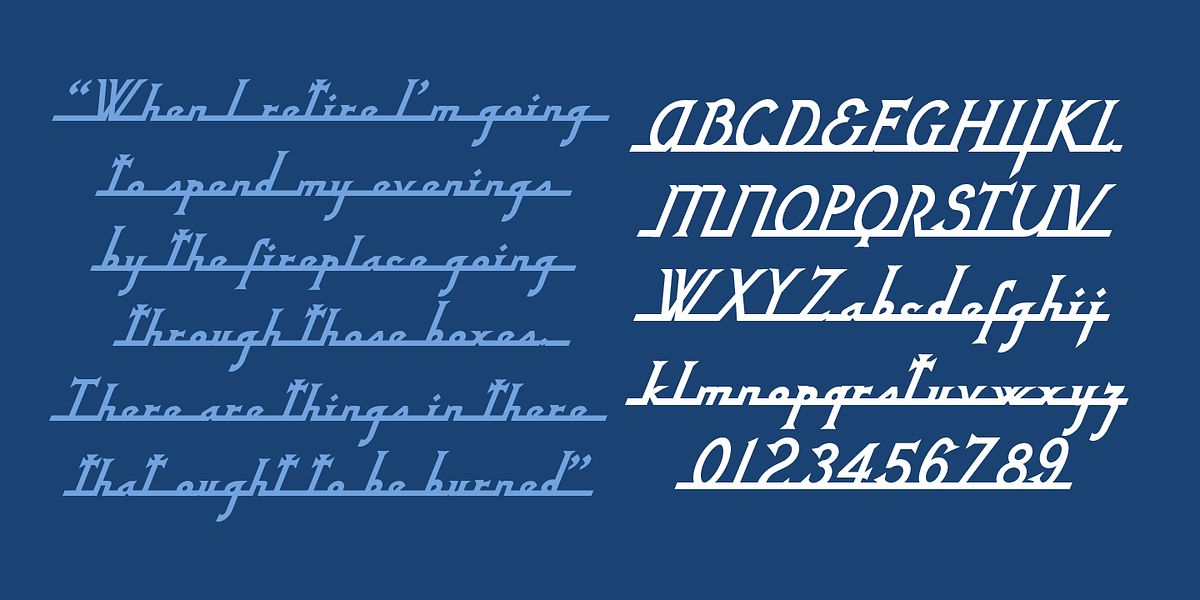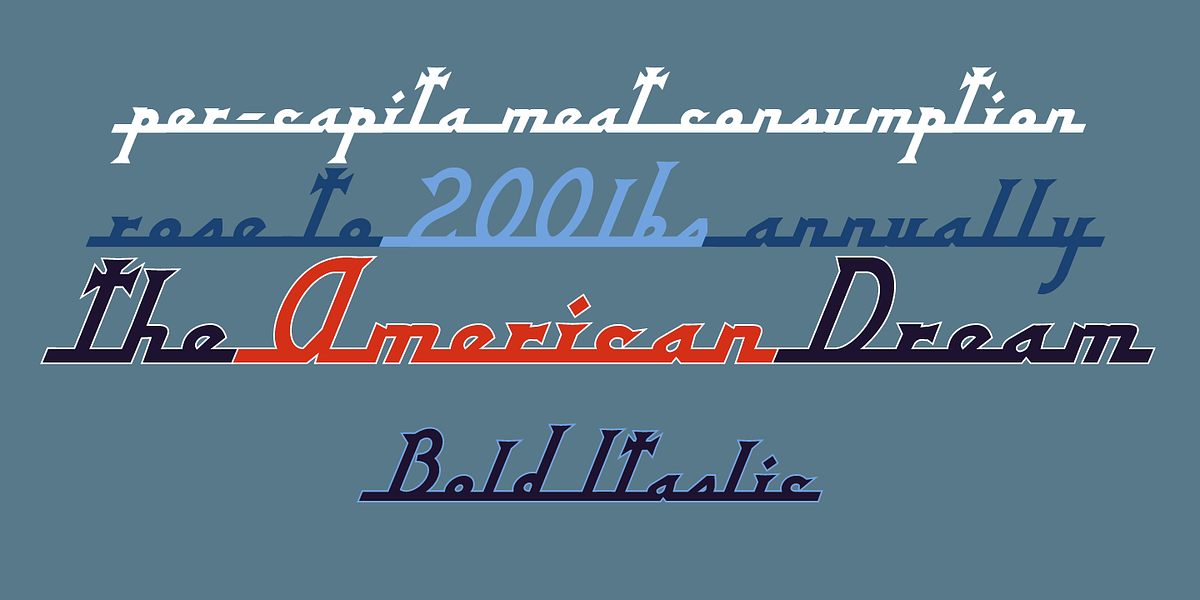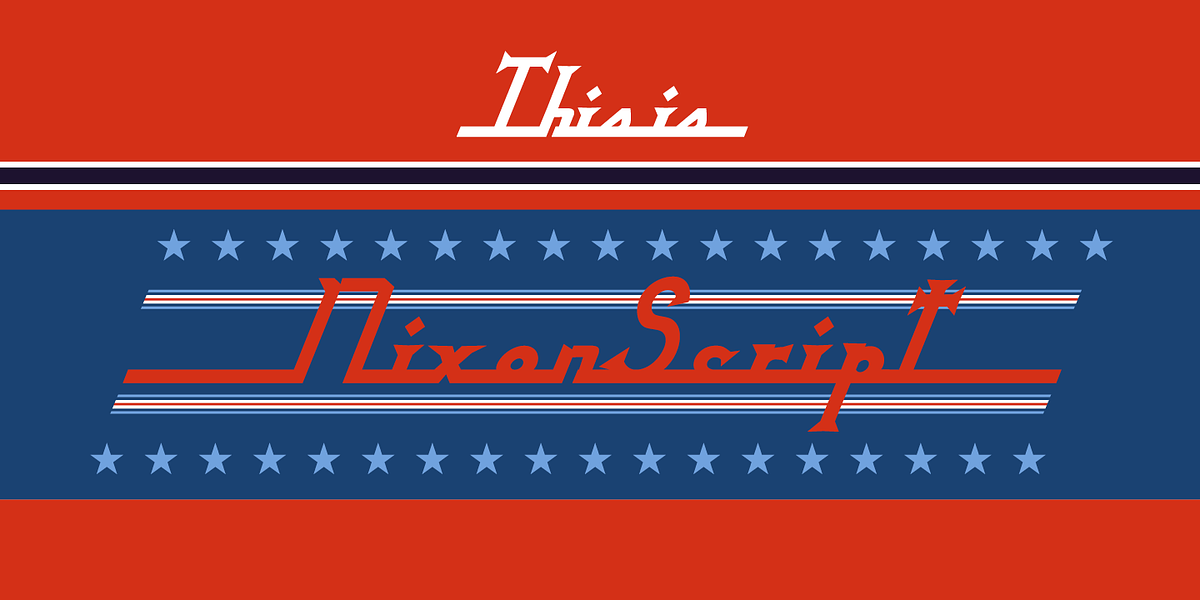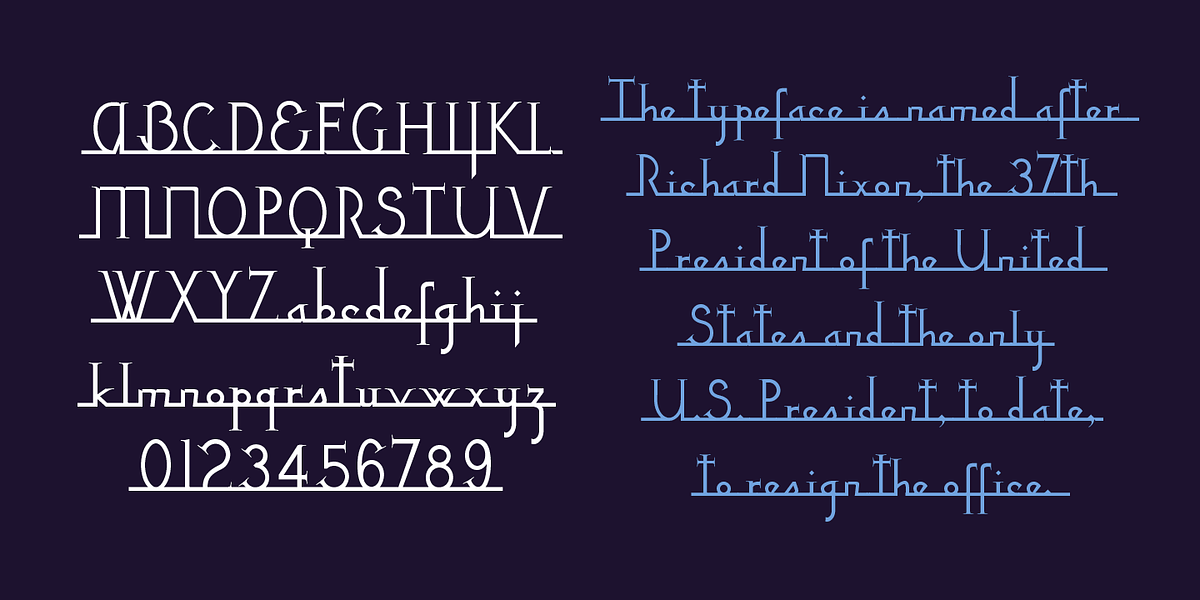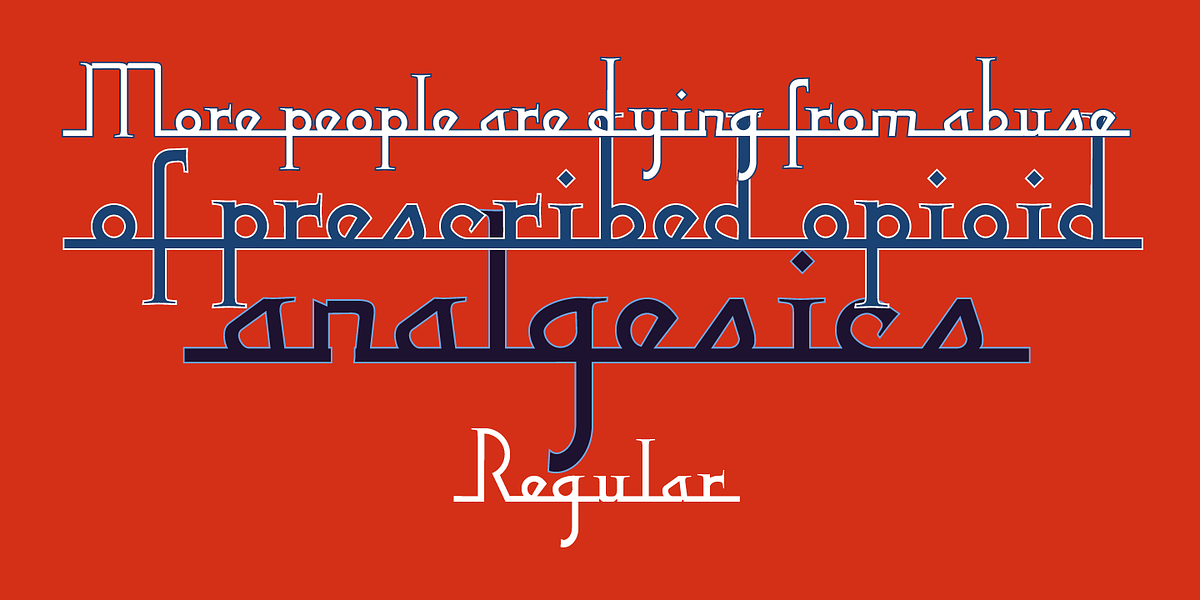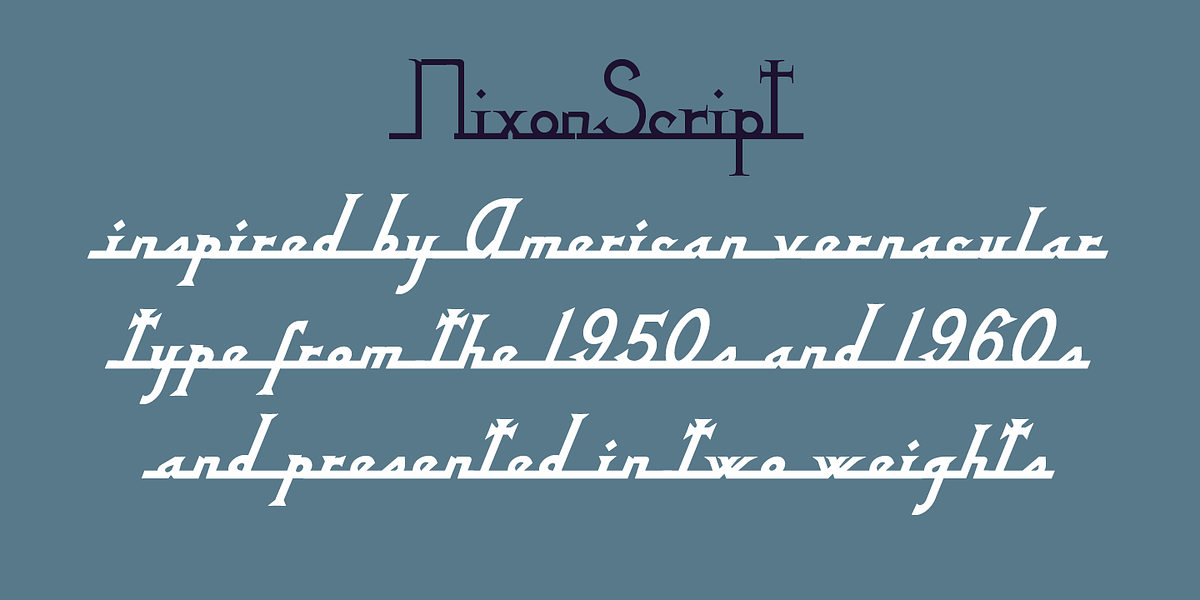
NixonScript
NixonScript is a display font duo inspired by the typographic styles prevalent in North America during the 1950s and 1960s. The Regular style draws inspiration from lettering found on a vintage camera, while the bold and italic variants lend a more energetic, self-assured feel to the typeface.